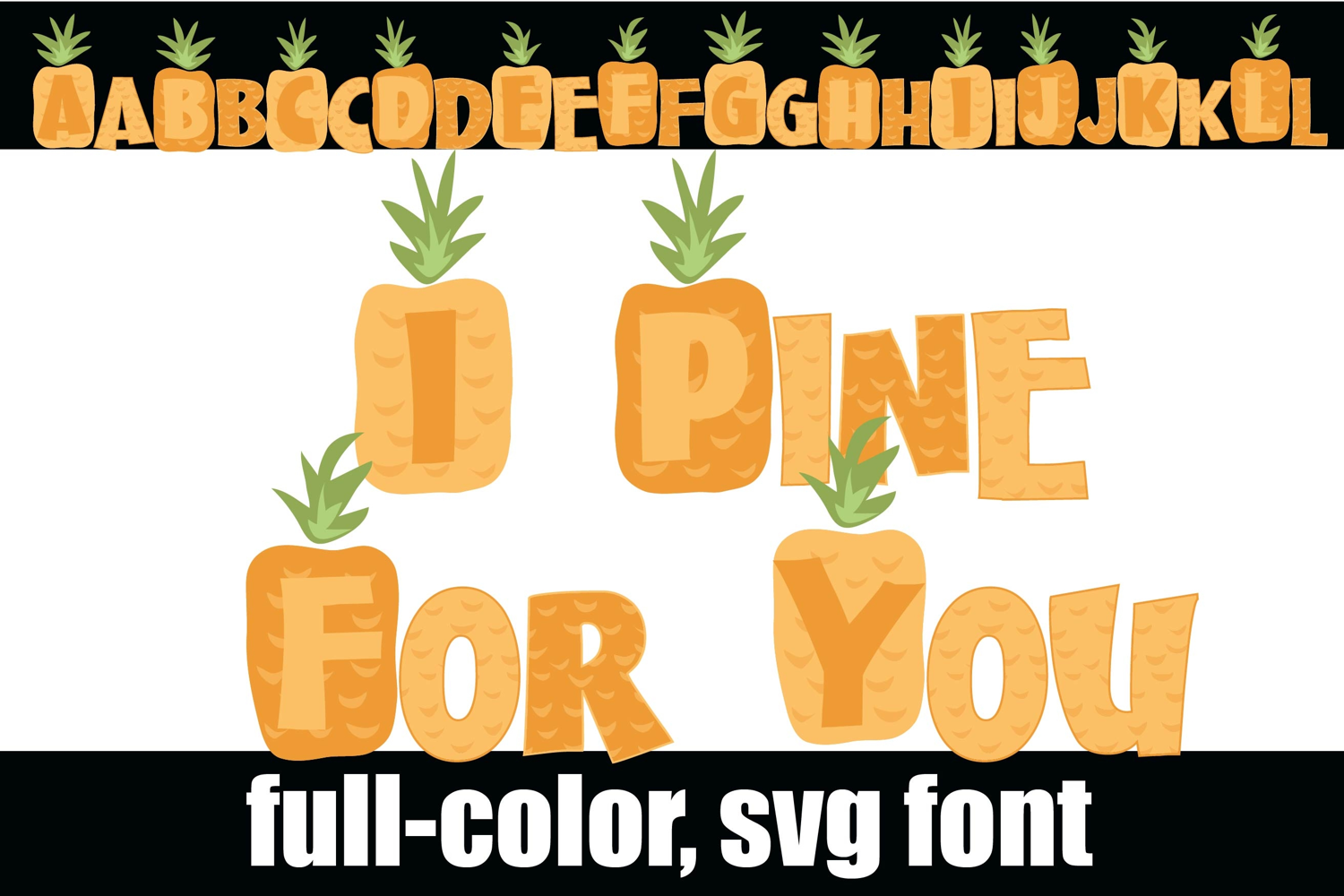
I Pine For You Color Font
This hand-crafted font is a full-color font featuring pineapples and pineapple pattern There is an alt case of each letter with a different color combination.